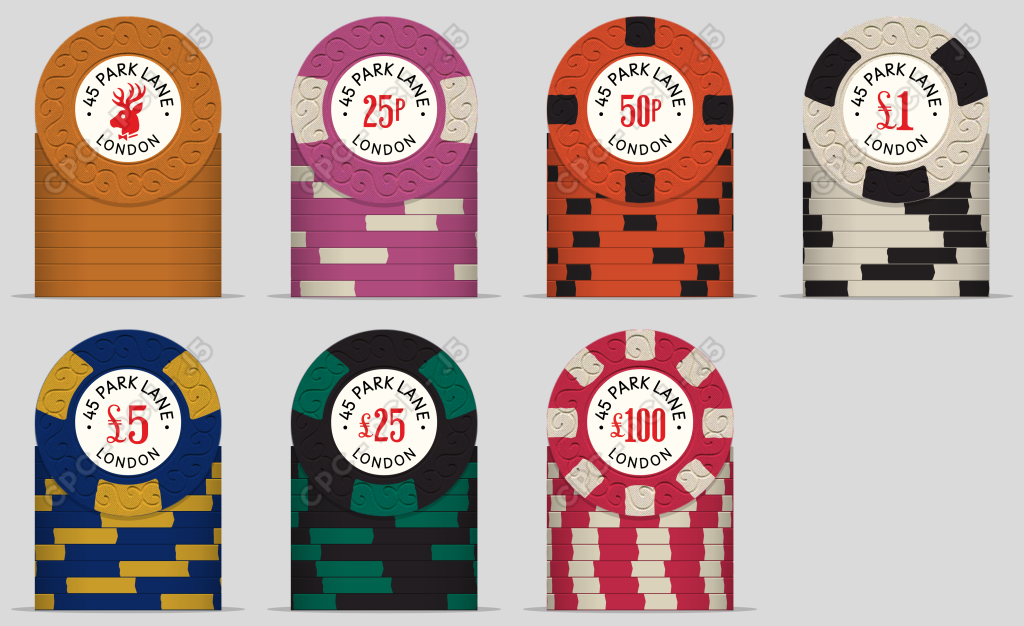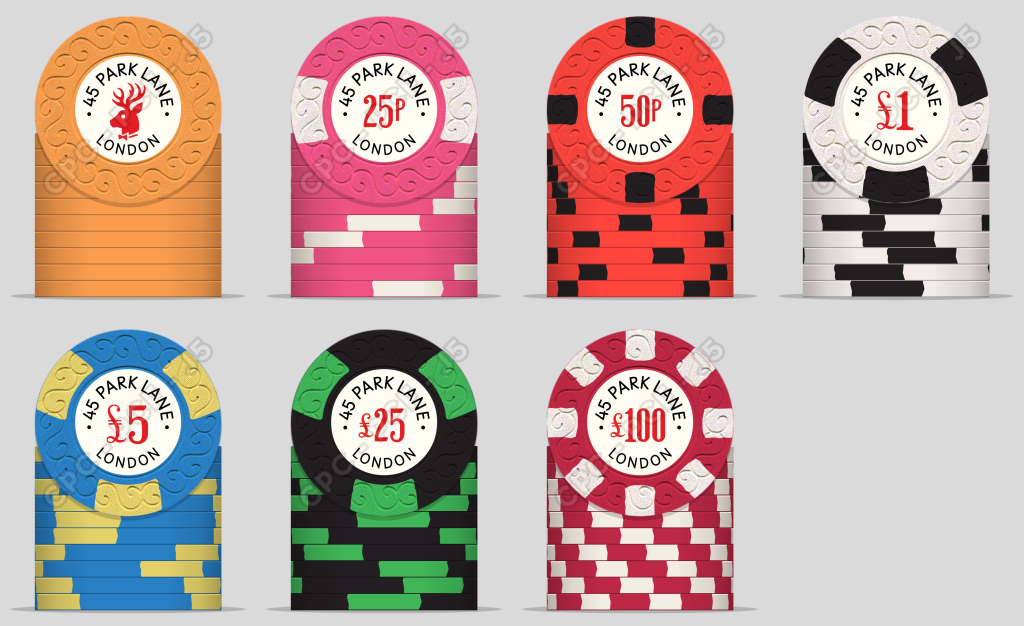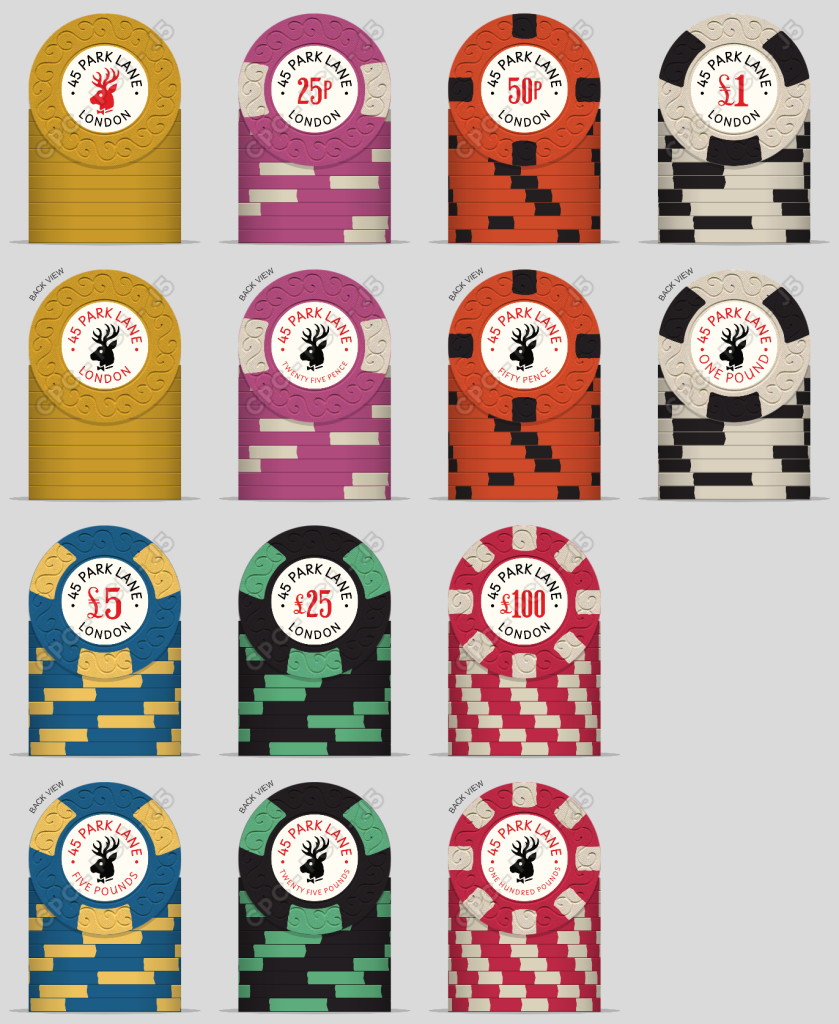
Playing around with some designs and I really like the vintage font on the original Playboy Club chips.
Do any of the design/history experts around here know which fonts they are?
They’re probably hand lettered originally, but would be interested to know if there were any anyone knows of that come close?
I think the general text is basically a generic sans serif, but the number fonts feel like there should be something out there
Yep, looks hand-drawn to me, quite common practice for logos and headlines in the days before photo typesetting.
It’s a little more expanded than Helvetica, maybe Arial or Open Sans would be better…those Y’s are particularly wide, however.
I’ve put together a tribute set to the original club but I’m back and forth on the colours.
What do y’all think works better: original or Dayglow?
(And yah, another 50p chip… wouldn’t feel right without it)
I prefer the original colours above, dayglo seems too bright for this set. That said without the comparison I don't think I would notice the difference both are very nice designs.
Love the inlay. If it were me I'd do a chip lineup closer to something like this (last being ncv, get rid of the 50p).
I also assume you're doing two-sided alt inlays.. you better. Ha
Thanks! I like the original too, but the 5 & 25 chips feel a bit too dark.
I was working on a blend to lighten them up and I think @Cratty and I had the same idea around colours
also assume you're doing two-sided alt inlays.. you better. Ha
Will have a play with NCV tonight. Was trying to keep a low one as I have a mix of players across games, some beginners that work better with 5p/10p £20 buy in. The higher ncv could work too
Good tip. Charcoal works for the 1 and I’ve marooned the 50p.
I’m not sure about the 25p and amount of white. Will probably remove the 50p for the actual production run.
Thoughts?
One more revision: Went back to the original card order form and got the colours from the shilling chips. Also thought of the Union Jack for a ncv.
Wouldn’t 20p be more natural for this set?
Maybe - I’ve they had a range of fracs there and it works with the currency. How does that play in a game?